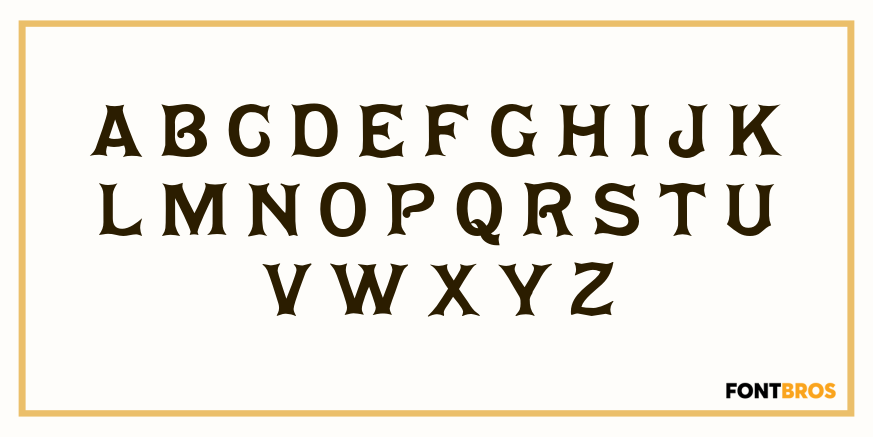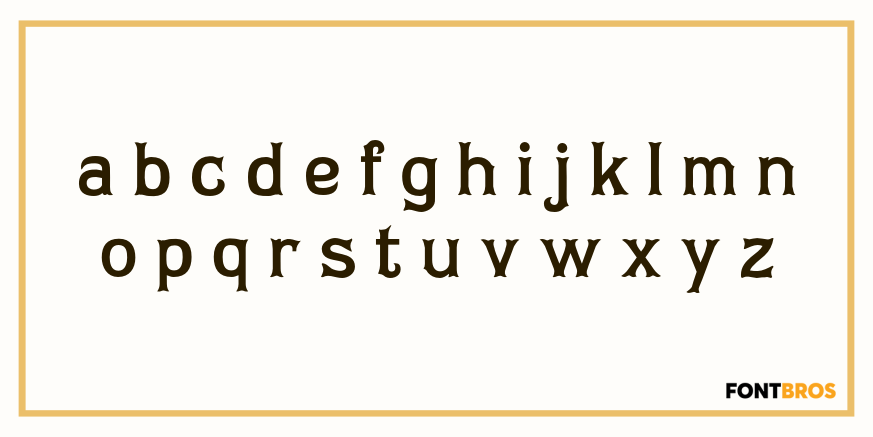
Dawson
Font Family by Solotype
Redrawn from an old wood type we picked up in London. The original manufacturer is unknown.
We added the lowercase to increase is usefulness.